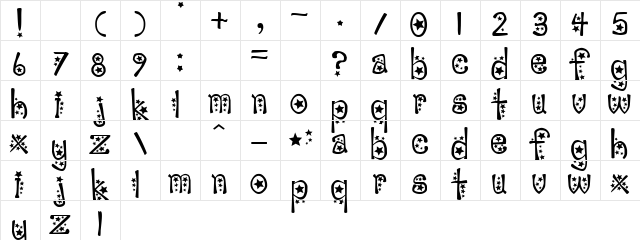
Complete sabrina star Regular glyph index. Displaying only characters natively supported by sabrina star Regular font.
sabrina star is a composed and adaptable typeface that performs quietly and consistently across a wide range of design contexts.